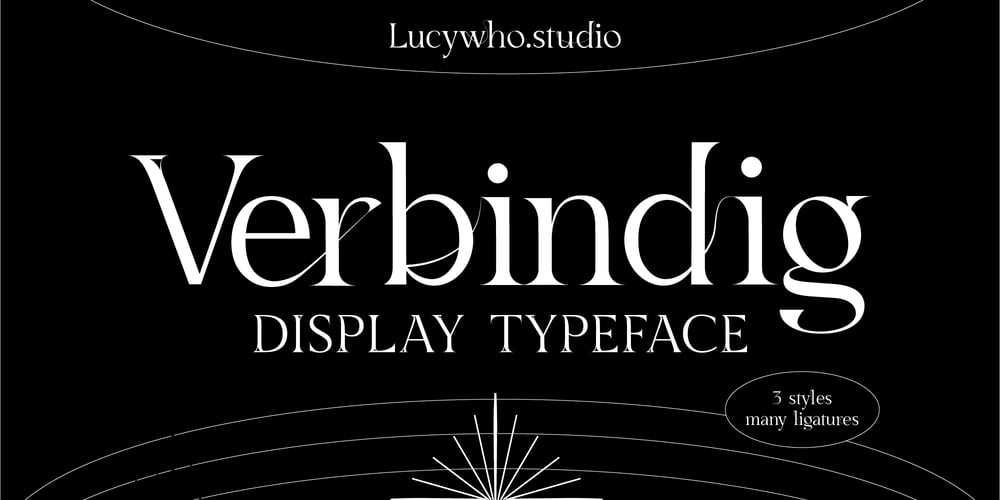
Verbindig Font Family was designed by Lucia Mercedes and published by Lucywho. Verbindig contains 3 styles and family package options. Verbindig is a modern serif style typeface. With over 45 joining ligatures and 3 different Styles it’s easy to make a unique logo, headline or poster in seconds. Regular, Bold & Extreme Multilingual support Numerals & Punctuation Fun fact: Verbindig means connection in swiss german – yes I’m from Switzerland